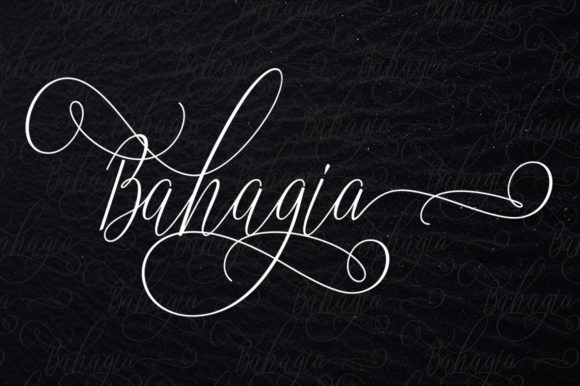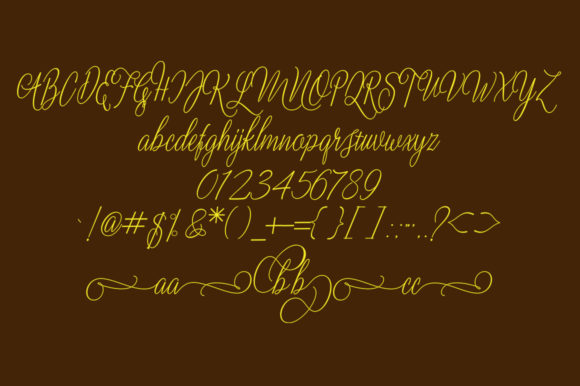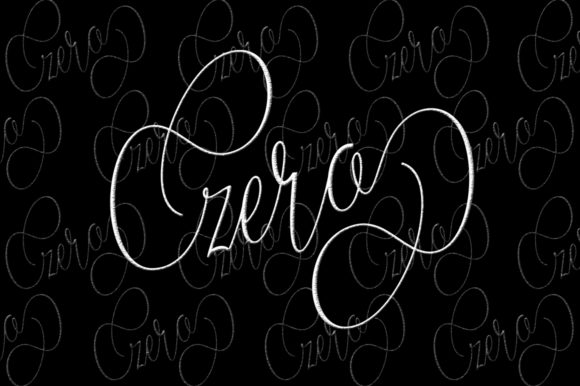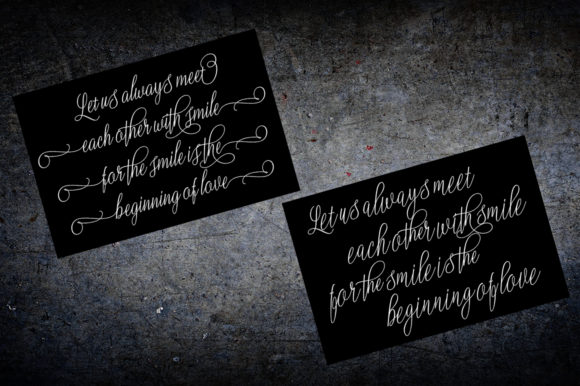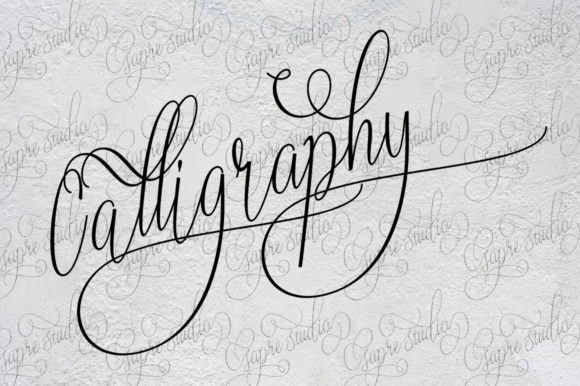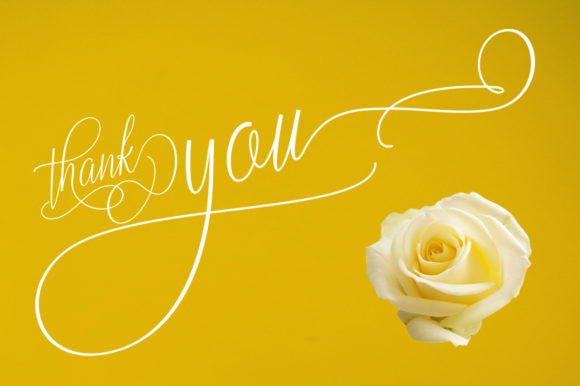
Introduction to Letty Font
Letty Font is a beautiful and stunning handwritten font with an incredible charm.
Fall in love with its authentic swashes .
Key Features of Letty Font